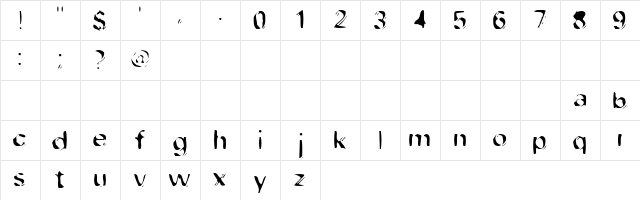
dob Filetype Free Font
dob Filetype
Design Context for dob
dob is a composed and adaptable typeface that performs quietly and consistently across a wide range of design contexts.